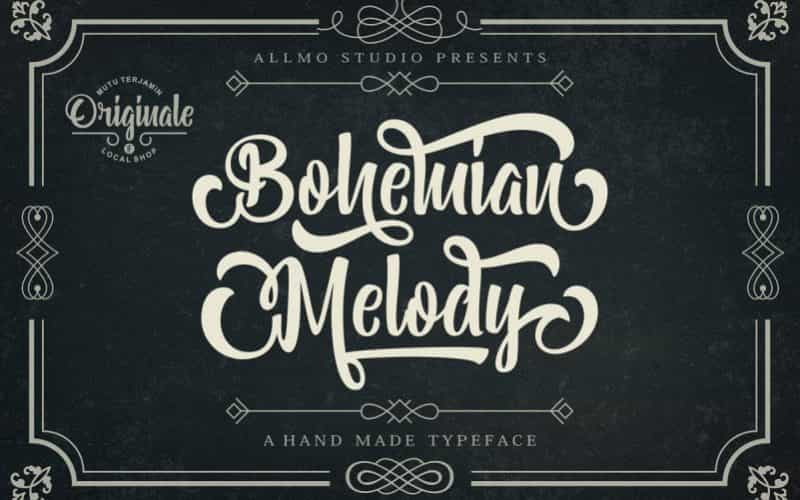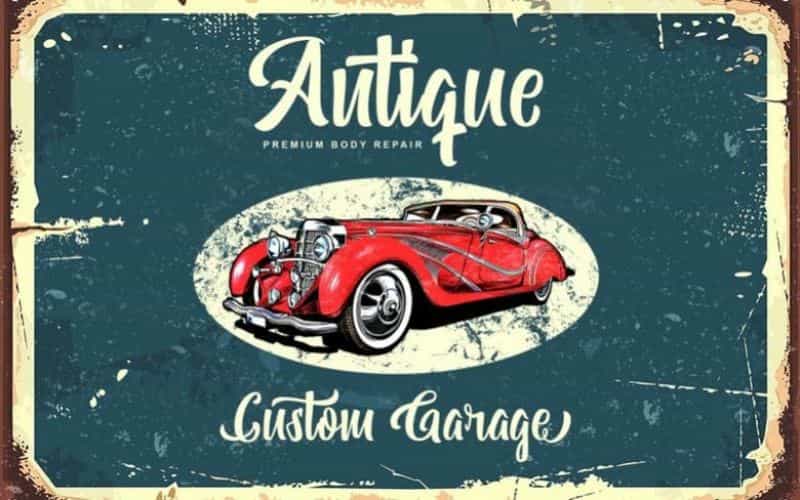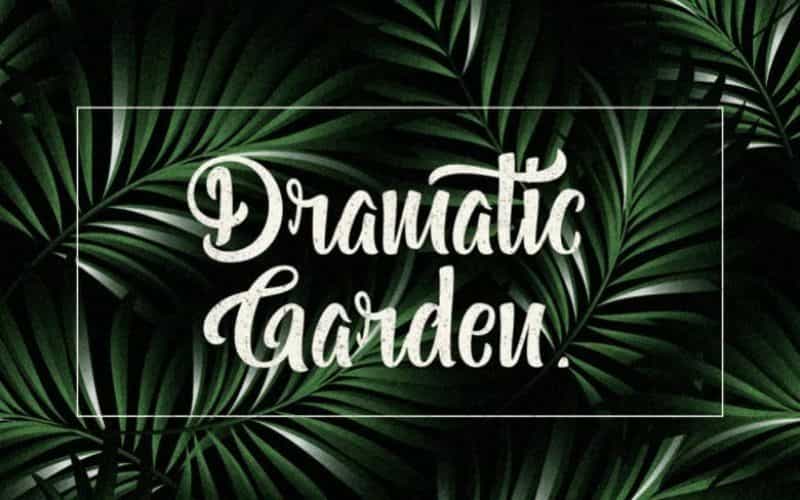
Are you seeking a powerful typeface? I believe that Bohemian Melody script is the best choice. Which is natural, modern and vintage in style, light-hearted while still dark and heavy-handed – told of it he will bring you an ongoing voice. Bohemian Melody includes script and hand lettering character “Powerfull identity will give more value for your work.”